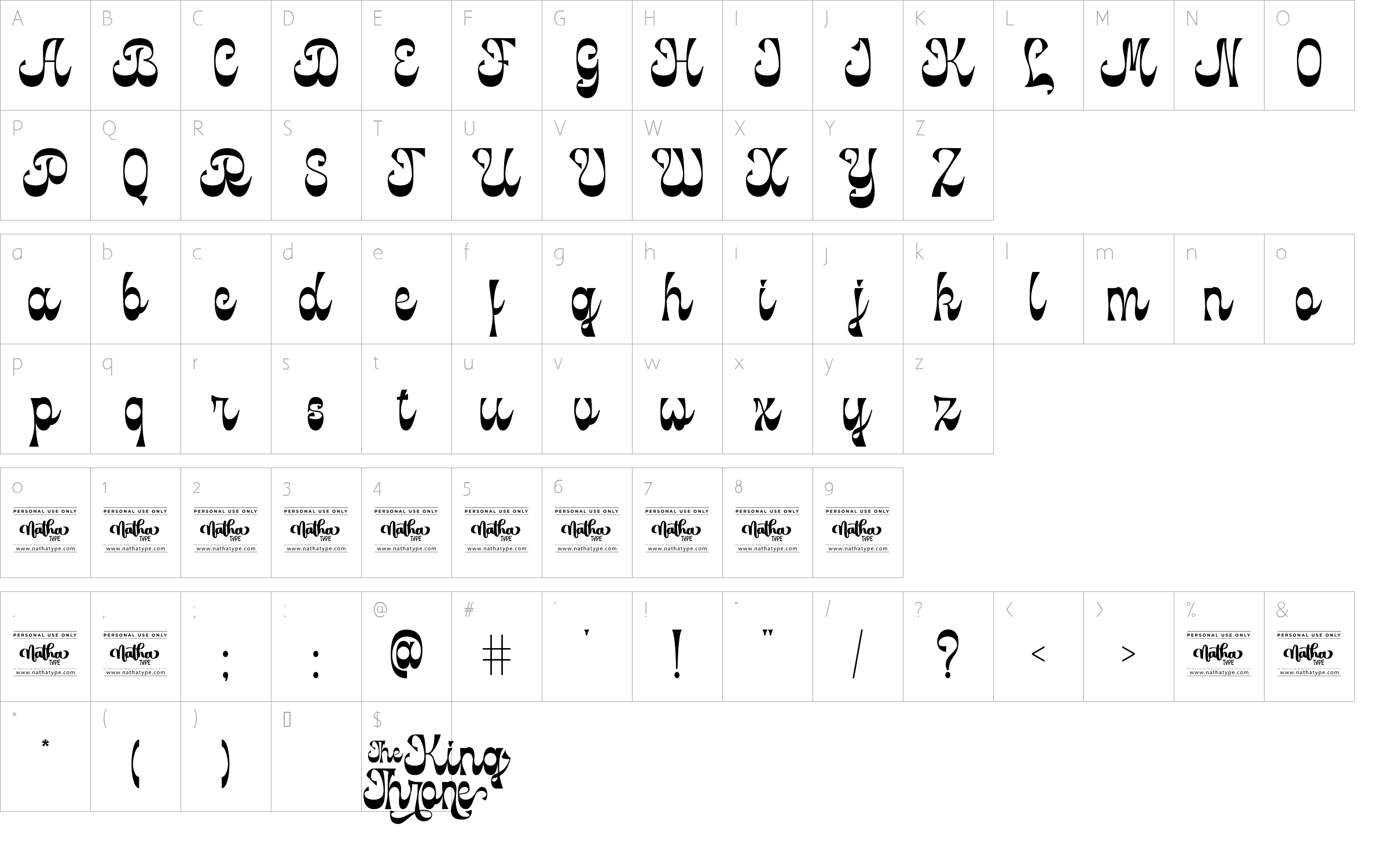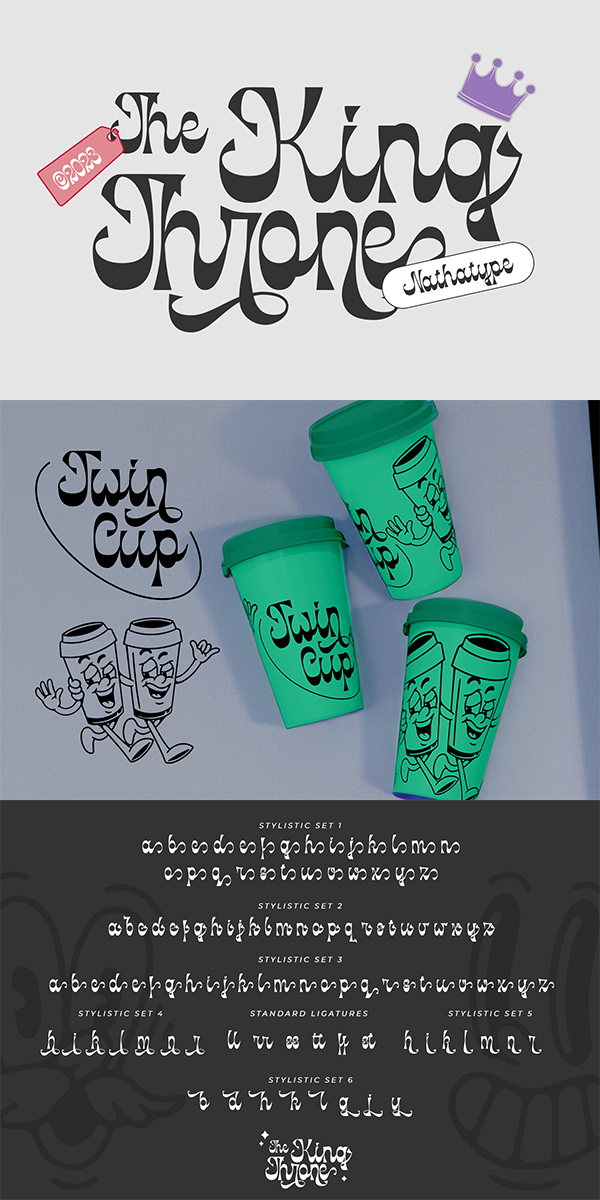
King Throne Font
About King Throne
King Throne is a regal display font that exudes an air of grandeur and elegance. With its high contrast characters and distinctive swinging letter ends, this typeface commands attention and captivates the viewer with its majestic presence. The high contrast design of this font creates a striking visual impact. The stark difference between the thick and thin strokes adds a sense of drama and sophistication to each letter, making them stand out with a commanding presence. The font’s weight distribution captures the eye and draws focus to the exquisite details of its letterforms. What sets King Throne apart is the captivating swinging ends of the letters. With a gentle curve and a flourish, these decorative elements add a touch of movement and grace to the font. The swinging letter ends contribute to the font’s regal aesthetic, evoking images of royal script and elegant calligraphy. They elevate the font’s overall appearance, transforming it into a true symbol of authority and power. For the best legibility you can use it in the bigger text. Enjoy the available features here.
King Throne fits in headlines, logos, attention-grabbing titles, product packaging, branding materials, editorial layouts and website headers. Find out more ways to use this font by taking a look at the font preview.